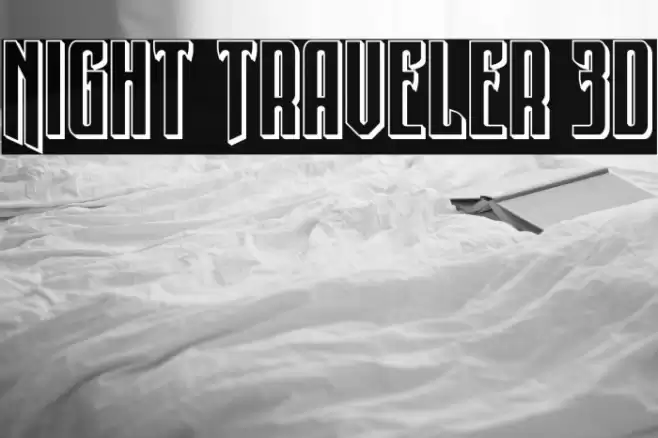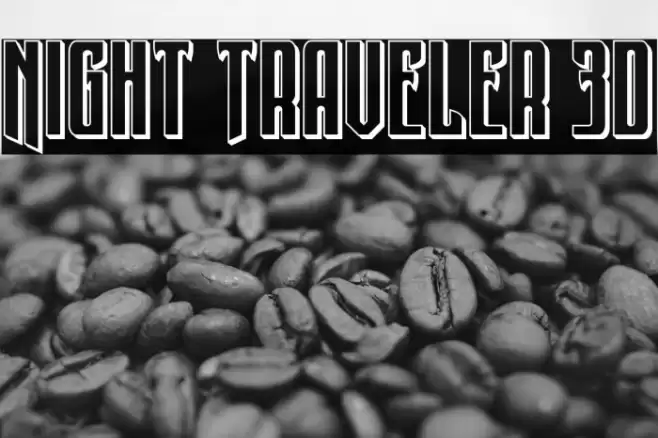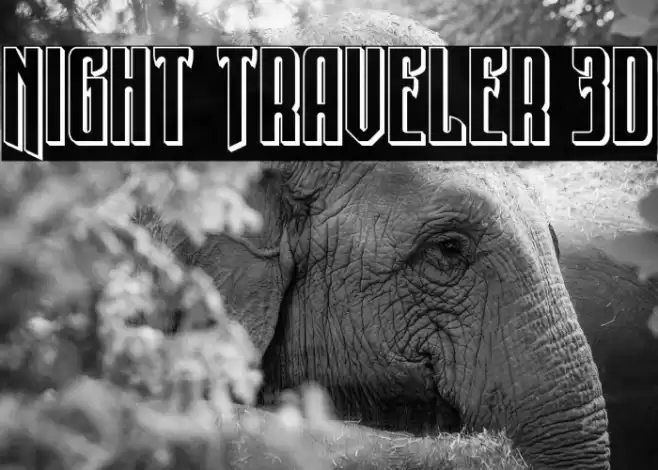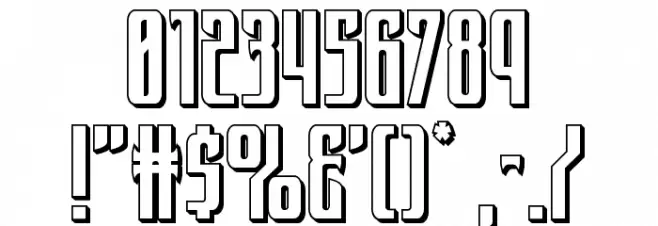
Night Traveler 3D Font
This font features a bold, geometric design with a three-dimensional effect that gives it a striking and modern appearance. The characters are outlined with a shadow-like effect, creating a sense of depth and dimension. The uppercase and lowercase letters maintain a consistent style, with sharp angles and clean lines that contribute to its futuristic look. The numerals and special characters are equally bold and maintain the same three-dimensional style, ensuring uniformity across all elements. This font is ideal for projects that require a strong visual impact and a modern aesthetic.
A bold, geometric 3D font with a modern and striking appearance from Uncategorized fonts.
- Proposed Projects: Ideal for headlines, posters, logos, and any design requiring a bold, modern aesthetic.